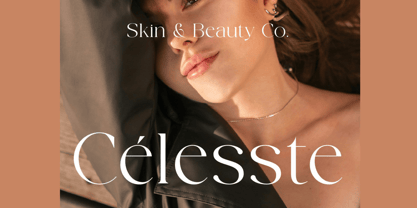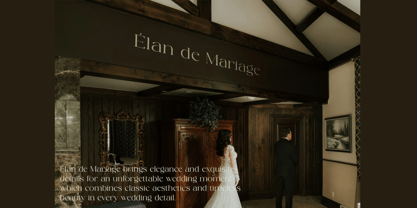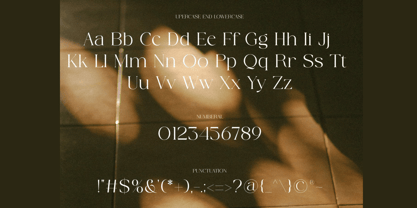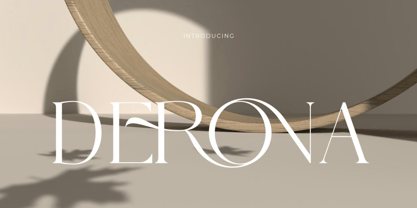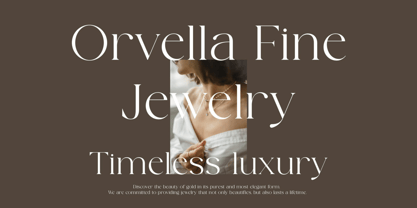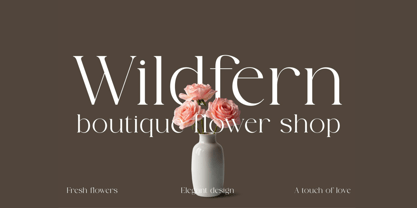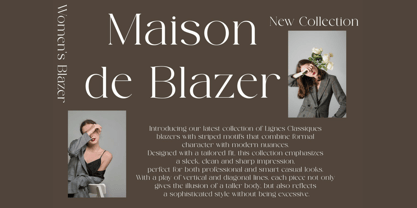
Diemora
Diemora is a beautifully crafted modern serif typeface that brings sophistication, elegance, and minimalist charm to your creative projects. With its clean lines, luxurious curves, and refined letterforms, Diemora offers a timeless serif aesthetic with a fresh, contemporary twist.
Designed for versatility and high-end appeal, Diemora is perfect for websites, brand identities, logos, wedding stationery, magazines, social media graphics, and more. Featuring unique uppercase letters A–Z, as well as a curated set of alternates and ligatures, this font gives you the flexibility to create eye-catching, personalized designs with professional polish.
✿ Key Features:
• Elegant & Modern Serif Design: Minimalist yet stylish for a luxurious feel.
• Custom Alternates & Ligatures: Enhance your designs with stylish typographic variations.
• Beautiful Capital Letters A–Z: Designed with character and distinction.
• Complete Typographic Set: Includes uppercase, lowercase, numerals, and punctuation.
• Clean and Versatile: Perfect for both print and digital applications.
✿ Perfect For:
• Modern Logos & Brand Identity
• Wedding Invitations & Event Stationery
• Social Media Quotes & Graphics
• Business Cards & Greeting Cards
• Magazine & Editorial Layouts
• Website Headlines & Hero Typography
Add class and clarity to your next project with Diemora—a modern serif font where elegance meets minimalism.